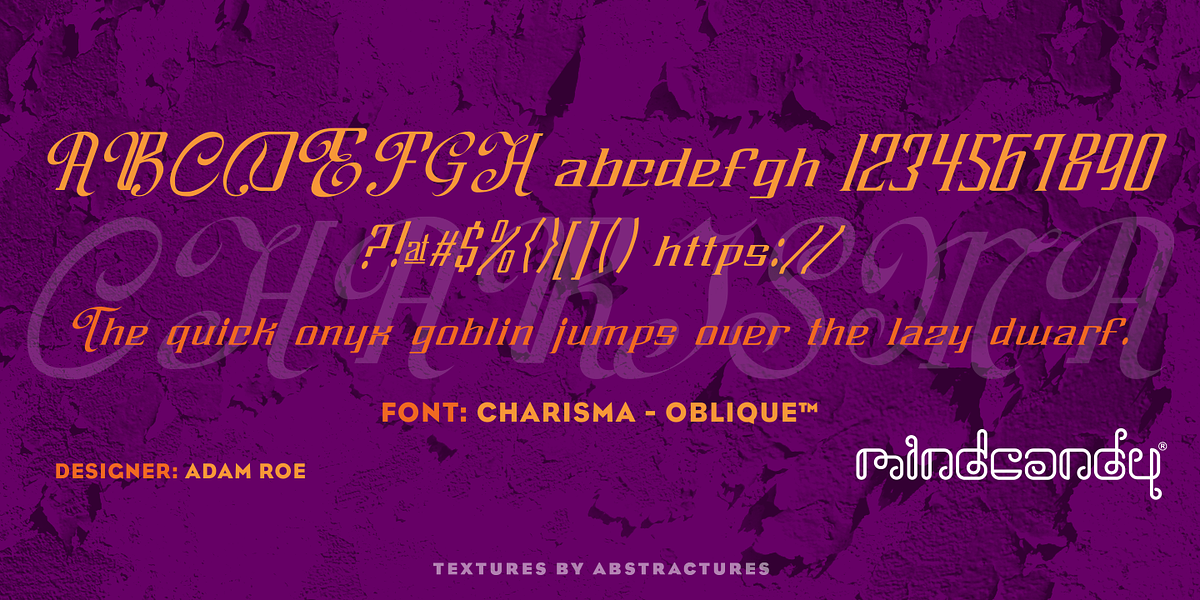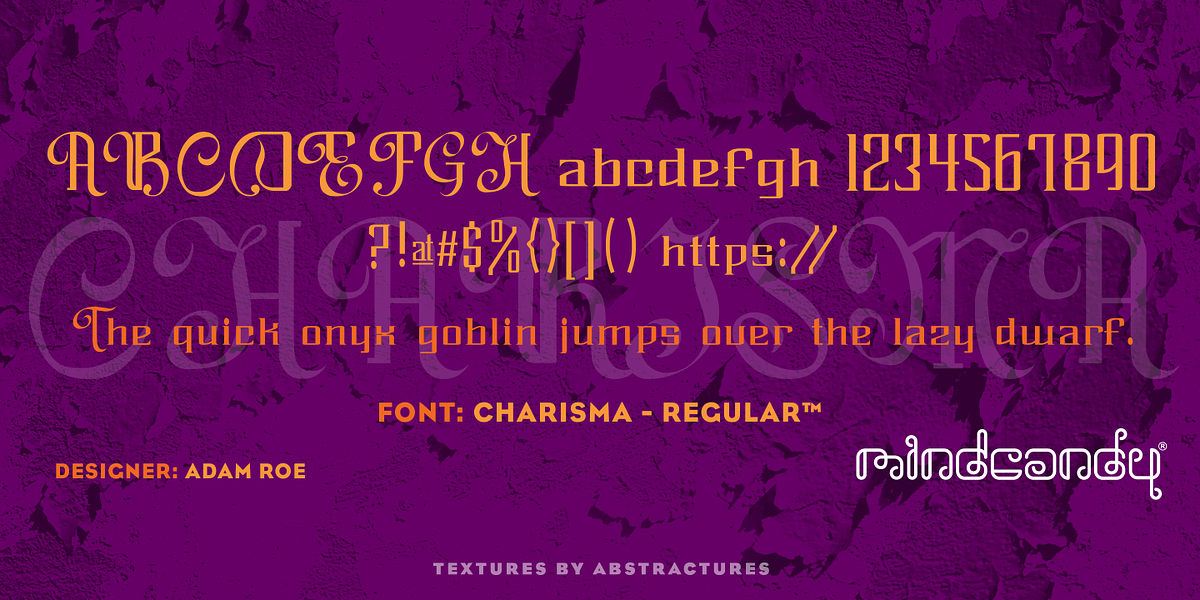
Charisma™
This font blends the traditional feel of blackletter with a modern calligraphic aesthetic. Its square forms and high contrast create a visually striking typeface suitable for branding, wedding invitations, and other projects requiring an elegant and distinctive touch.